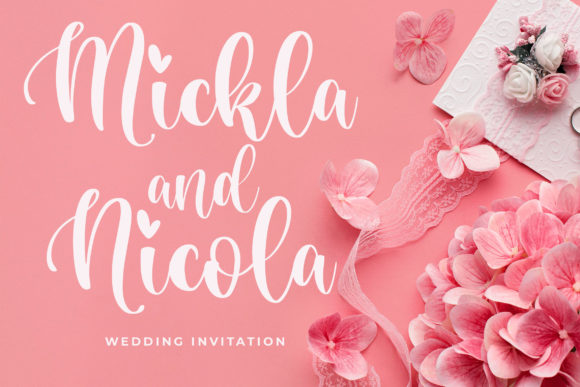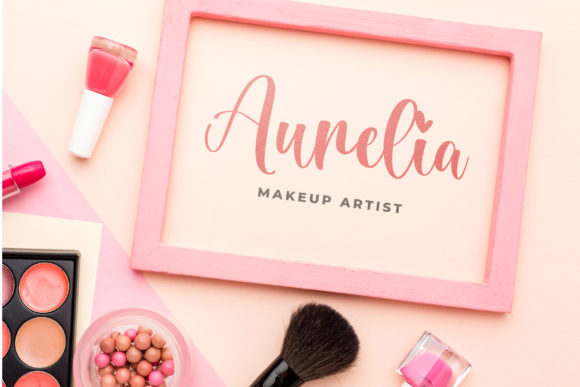
Piglate Font
db-ku.com - Script & Handwritten -- Piglate is a beautiful and jolly handwritten font with a unique feel and a stunning impact. It will add a luxury spark to any design project that you wish to create!